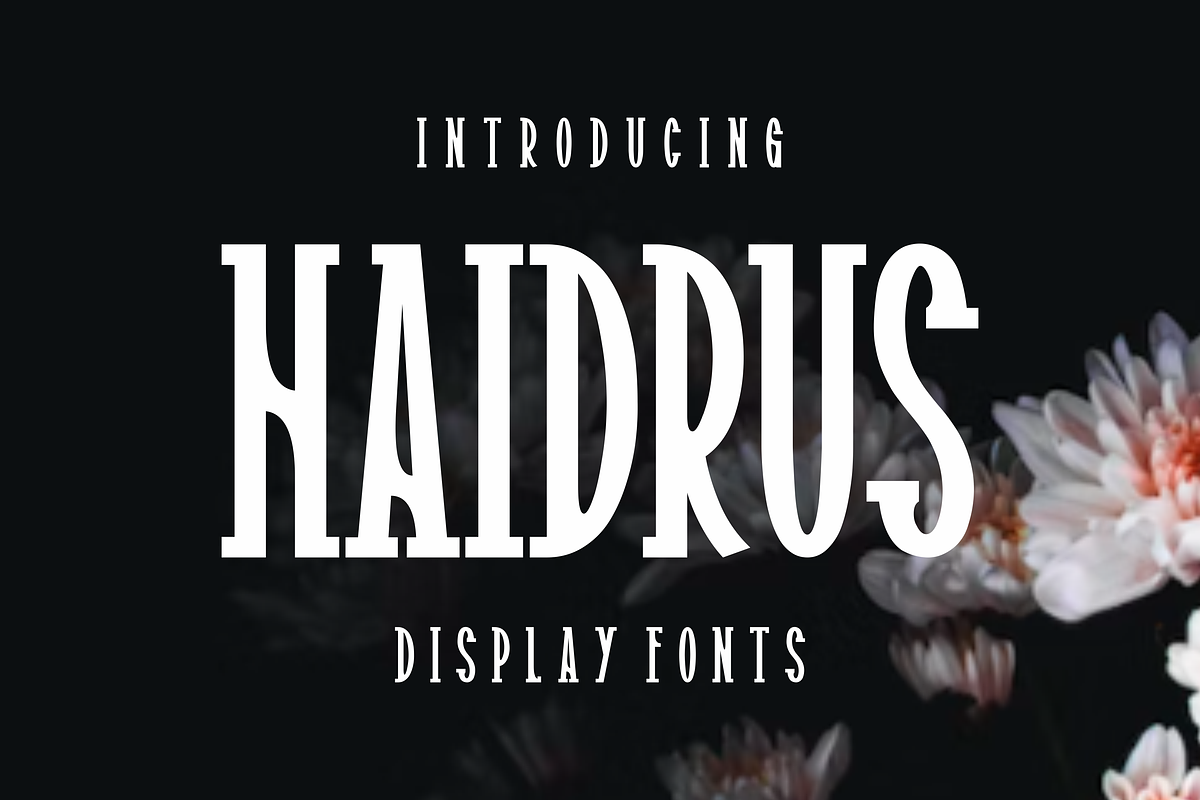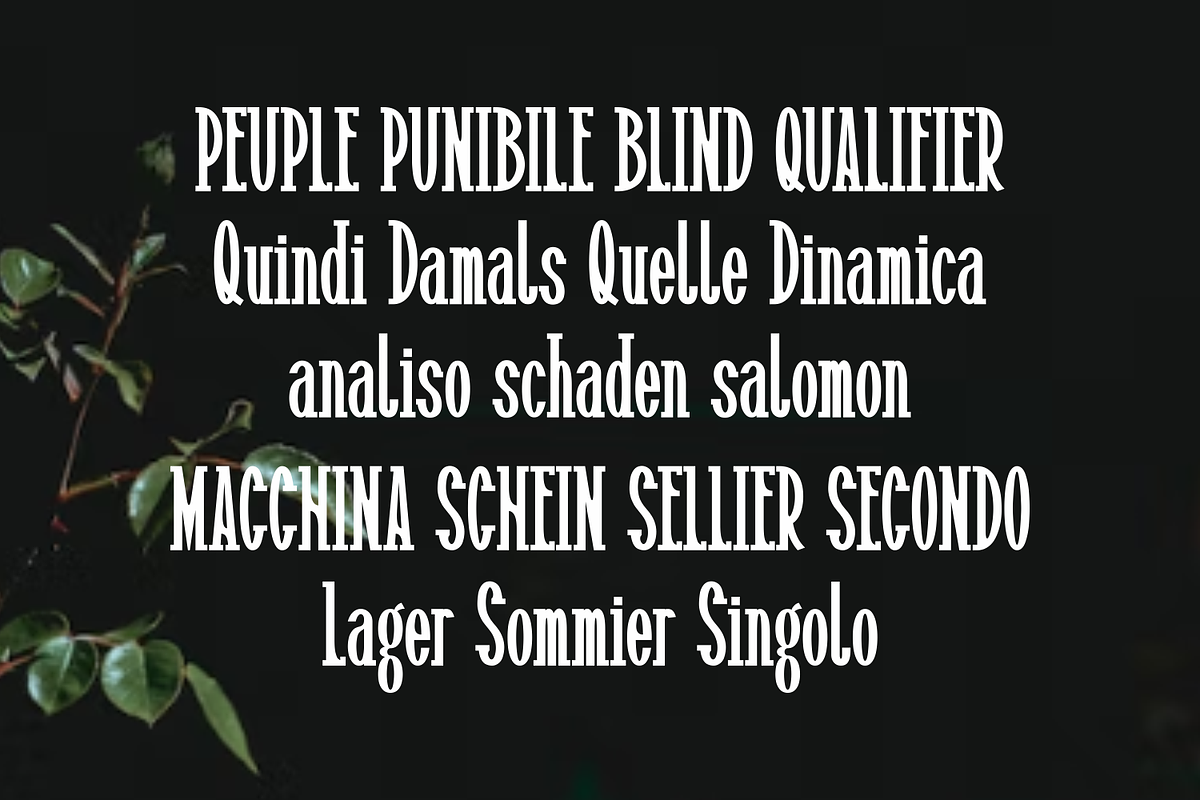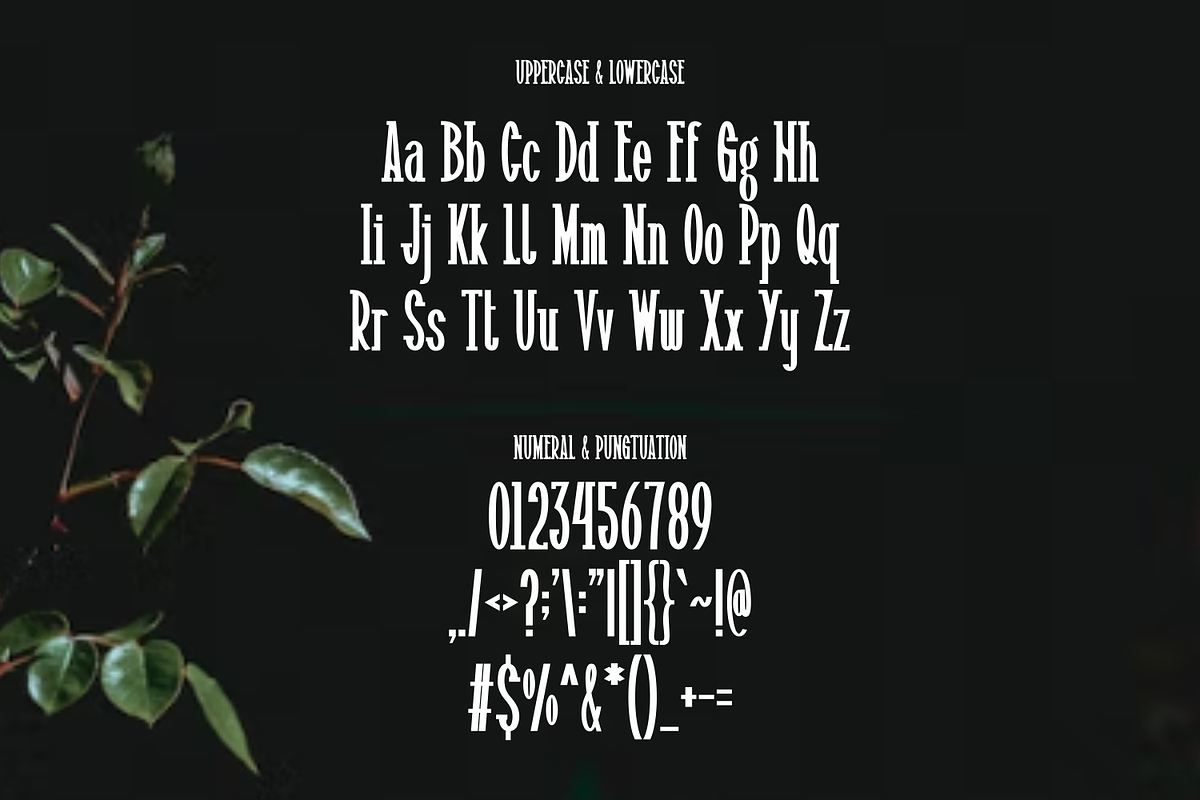
Haidrus
Haidrus Perfectly suited on print/screen. it’s perfect for Branding, name card, poster, logo, magazine, cover, banner, t-shirt and headers, or even large-scale artwork.